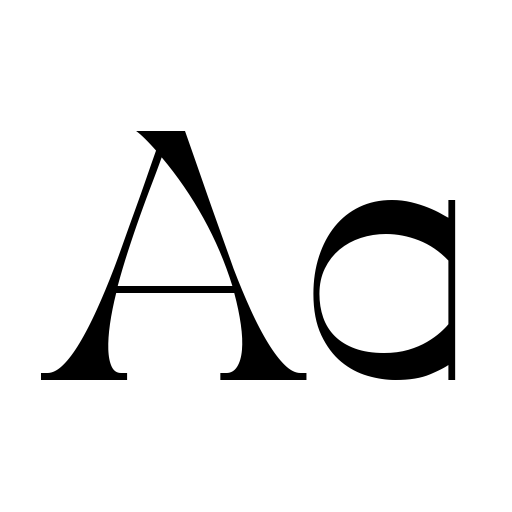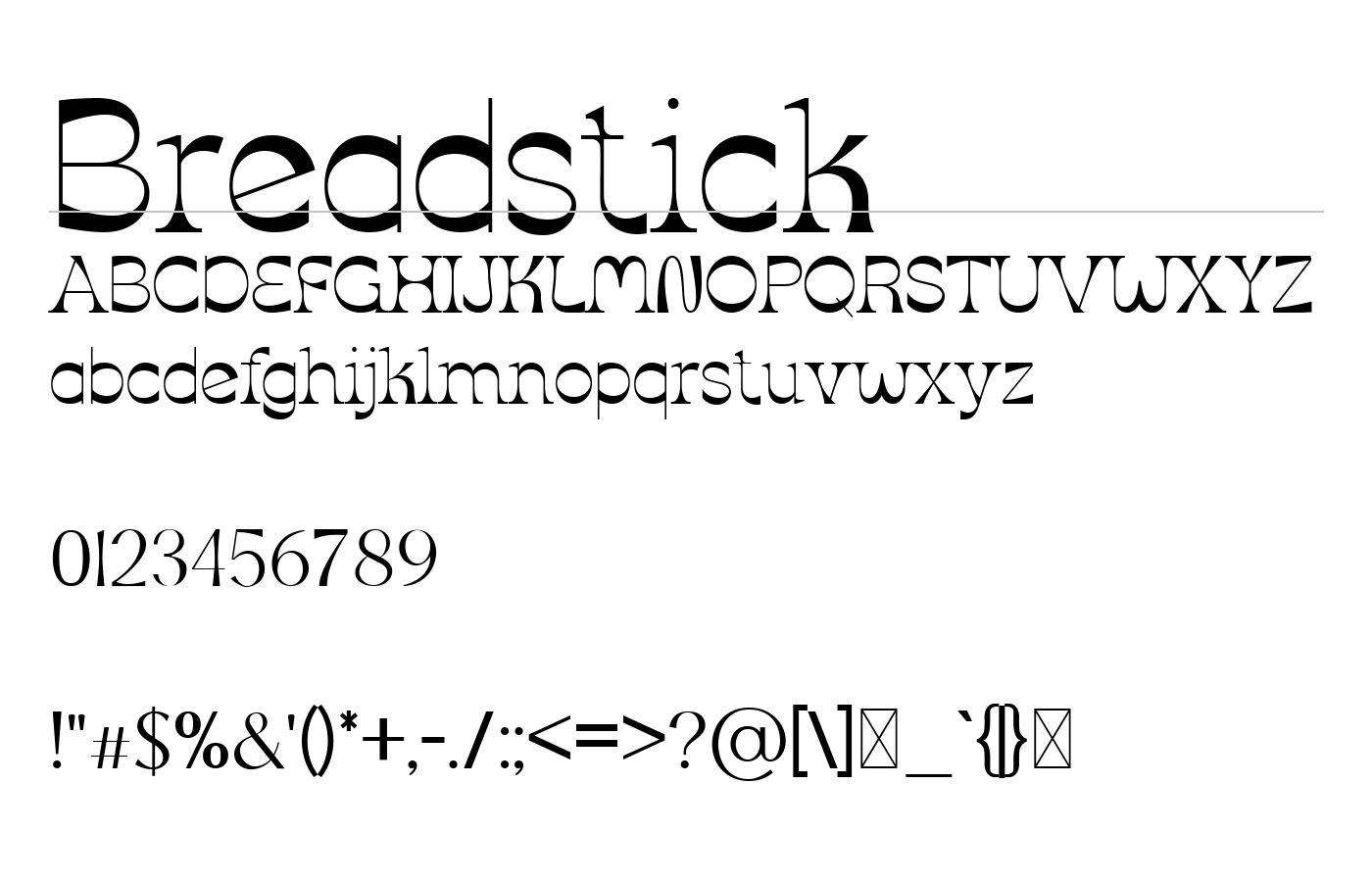
Breadstick is an elegant serif font with a modern twist, featuring high contrast between thick and thin strokes and distinct, sharp serifs that add a sophisticated flair. Its unique letterforms combine playful curves with angular details, making it perfect for stylish logos, editorial headlines, and fashion branding that seeks a refined yet contemporary look. This font works best in display settings where its artistic character can shine and capture attention.
Breadstick Font
About Breadstick Font